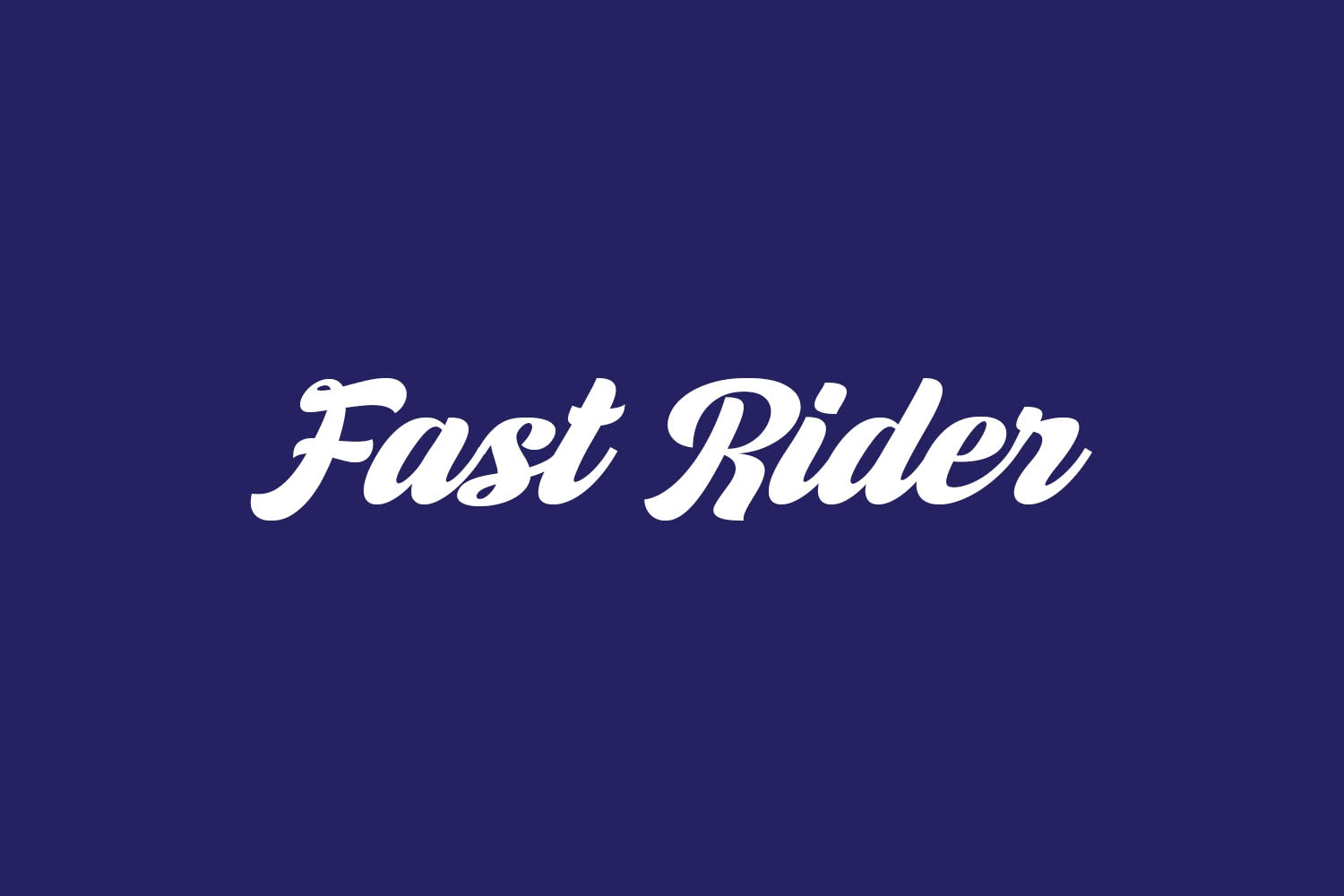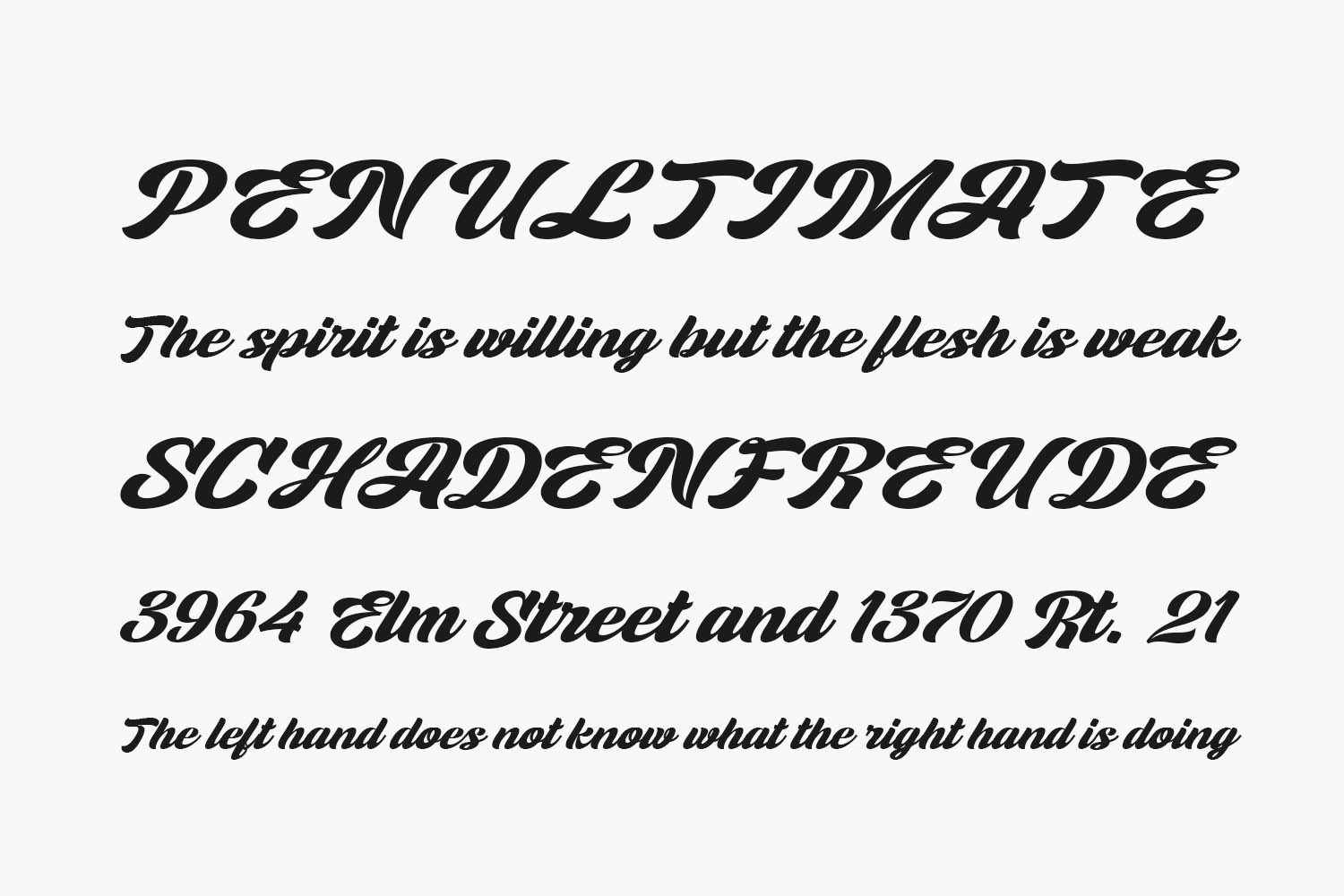
Introducing Fast Rider Free Font Family, a sleek and vintage brushed handwritten font designed to enhance your projects. With its wide range of alternate characters, this font offers unparalleled convenience in selecting the perfect character for any design endeavor. Experience the charm and versatility of Fast Rider today. Fast Rider Free Font is free for personal use only. Please purchase the full version for commercial use.
Fast Rider Regular The quick brown fox jumps over the lazy dog
Fast Rider Shadow The quick brown fox jumps over the lazy dog